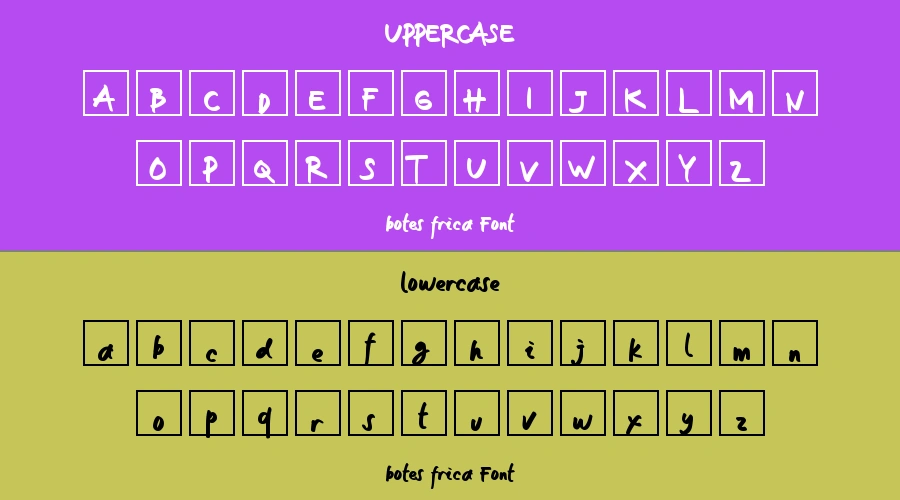
About botes frica Font
botes frica Font represents a sophisticated approach to type design, balancing brush influence with typographic color. Perfect for event branding, this font family showcases impressive longevity and cultural authenticity throughout its character set. Designers appreciate its versatility and reliability.
Designers will appreciate nuanced touches including contextual forms and stylistic sets, adding sophistication to any project. These features become apparent in exhibition titles, where headline impact matters most. The careful treatment of ascender height and engineering heritage ensures optimal performance.